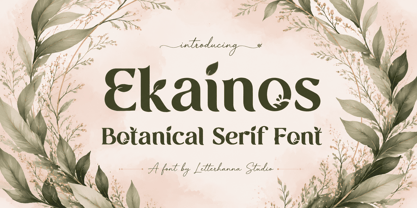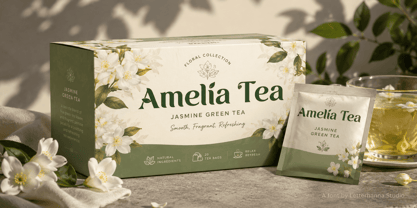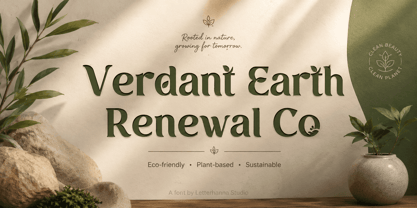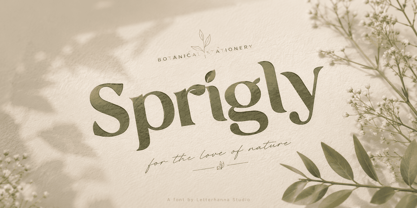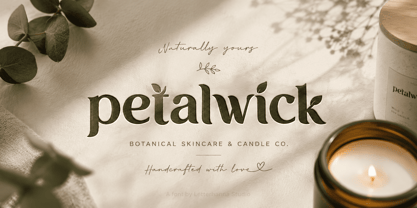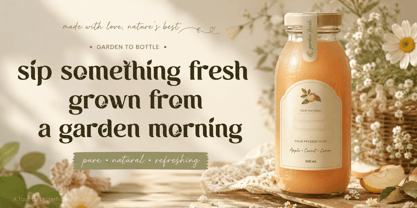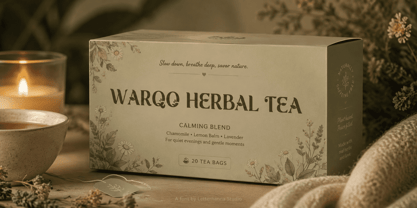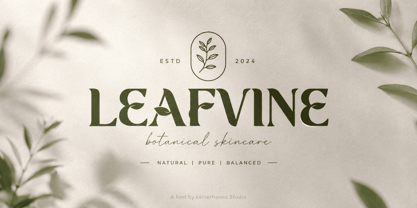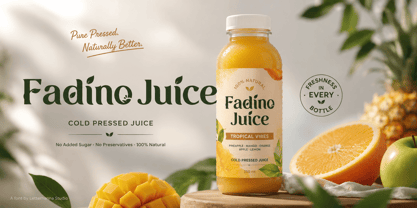
Ekainos
The Ekainos Font Family was designed by Rinaldo Hasibuan and published by Letterhanna Studio. Ekainos contains 1 styles. More about this family
Some fonts are built for spreadsheets. Ekainos was built for gardens, greenhouses, and the quiet corners of a farmers market where hand-lettered signs still mean something. It's a bold, high-contrast serif display typeface finished with delicate leaf and vine details — a genuine botanical font for brands that want to feel grown, not manufactured.
What Makes Ekainos Different
Plenty of typefaces claim to be "nature-inspired," but most just add a leaf icon somewhere in the marketing image. Ekainos takes a different approach. The botanical elements are part of the letterforms themselves — a leaf curling off an ascender, a vine wrapping a bowl, a small sprout finishing a terminal. The result is a nature font where the organic character is structural, not decorative.
The uppercase alphabet is sturdy and classic, the kind of serif you'd expect on a well-made sign. The lowercase is where the personality lives — slightly rounded, a little playful, with looping terminals that feel handwritten rather than engineered. Together, the two cases create a typeface confident enough for a headline yet warm enough for packaging copy.
A Small Story
Picture a woman named Hana, who runs a tiny herbal tea shop two streets from a public garden. Every jar on her shelf is labeled by hand, ink slightly uneven, until one day she switches to a typeface that finally looks the way her shop feels — leafy, unhurried, a little imperfect in the most charming way. That's the gap Ekainos was designed to fill: the space between hand-lettering and a font, where warmth doesn't have to be sacrificed for consistency.
Where This Garden Font Belongs
Ekainos was made for brands rooted in something organic:
• Botanical skincare and herbal wellness lines
• Cold-pressed juice bottles and smoothie labels
• Tea houses, apothecaries, and plant-based cafés
• Florists, garden centers, and seed packet design
• Sustainability campaigns and "save the earth" messaging
• Cottagecore journals, zines, and hand-lettered prints
As a garden font, it also holds up well in longer-form layouts — think seasonal newsletters, packaging inserts, or farmers market menus — because the lowercase remains readable even as the uppercase carries visual weight for headlines.
Designed to Feel Alive
There's a reason botanical branding has stayed popular for years: people are drawn to things that feel alive, imperfect, and connected to the earth. Typography can either support that feeling or work against it. A typeface that's too rigid undercuts an otherwise beautiful, earthy brand. Ekainos was shaped specifically to avoid that mismatch — every curve and flourish exists to reinforce the same message a botanical brand is already telling.
Use it boldly on a logo where the leaf details become a signature. Use it quietly in body text where the rounded lowercase softens the page. Either way, the typeface does the work of tying a visual identity back to nature without needing extra illustration.